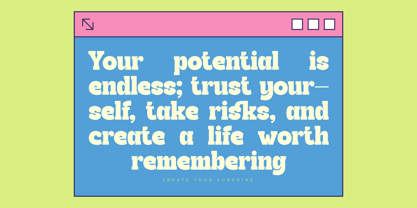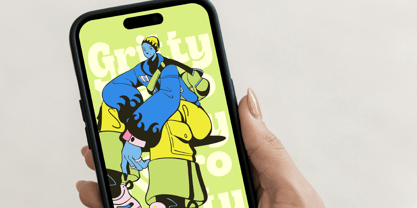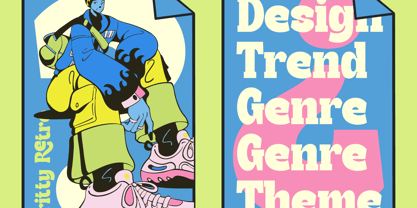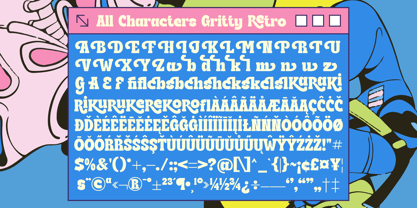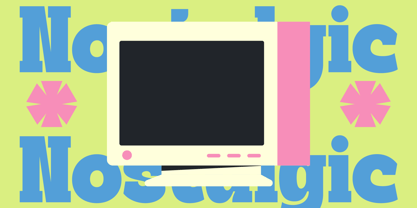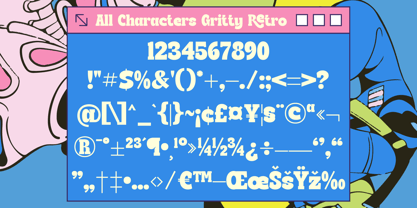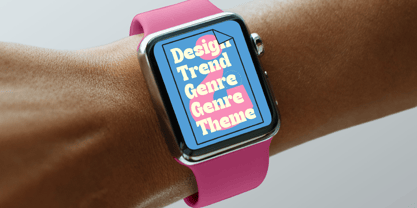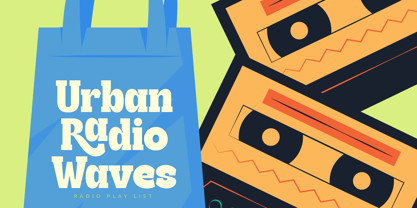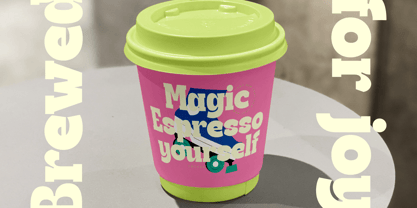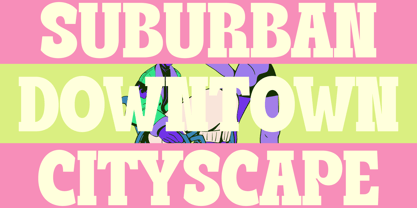
Gritty Retro
The Gritty Retro Font Family was designed by Heru Utama Putra and published by Timelesstype Studio. Gritty Retro contains 2 styles and family package options. More about this family
Gritty Retro - Display Serif Retro , from Timelesstype, Suitable for any projects such as: logos, branding projects, homeware designs, product packaging, mugs, quotes, posters, shopping bags, t-shirts, book covers, name card, invitation cards, greeting cards, label, photography, watermark, special events, and all your other luxury and beautiful projects that need a Luxury Serif taste.